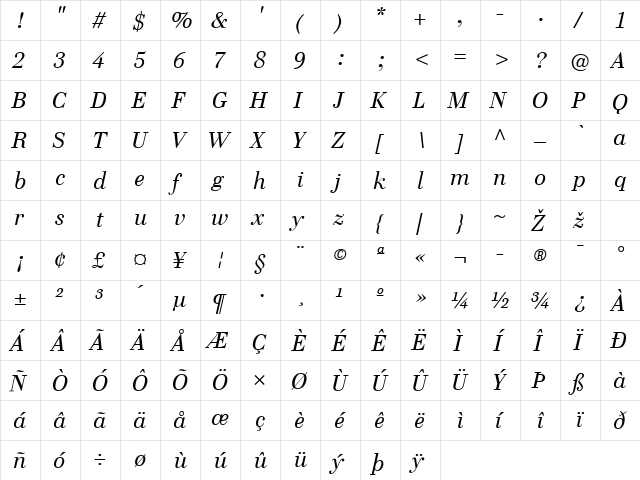
CelliniTF-RegularItalic Regular
| Foundry | Albert Boton, published by FontShop International for the FontFont Library |
| Designer | Albert Boton |
Design Context for CelliniTF-RegularItalic Typeface
CelliniTF-RegularItalic takes a measured approach to typography — its balanced proportions and neutral character make it a reliable workhorse for both digital and print work. The slanted form adds forward momentum and visual energy.
Pro Tip: Try CelliniTF-RegularItalic for annotation and caption copy alongside an upright companion — the contrast in angle creates a dynamic but ordered typographic system.